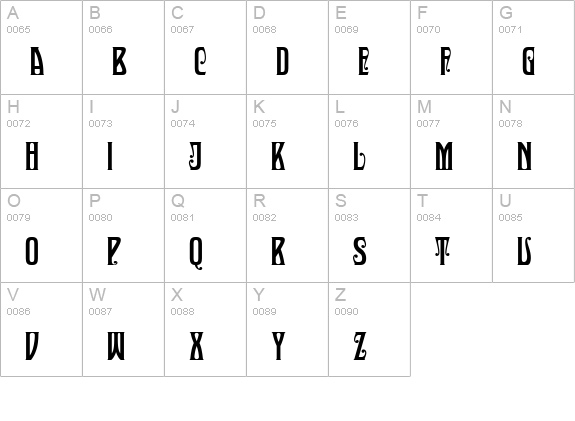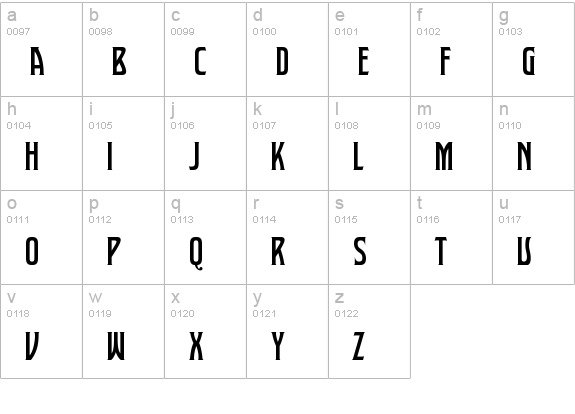
Sultan Cafe PERSONAL USE Font Details
Sultan Cafe PERSONAL USE font is an exquisite and versatile typeface that captures the essence of elegance and sophistication. With its flowing and intricate letterforms, this font adds a touch of luxury to any design project. Designed with meticulous attention to detail, Sultan Cafe PERSONAL USE font is perfect for creating stunning logos, branding materials, invitations, and more. Its unique and ornate design makes it ideal for projects that require a touch of opulence and grandeur. But what sets Sultan Cafe PERSONAL USE font apart is that it is available for free! Yes, you read that right. This stunning typeface can be freely downloaded from FontsMarket.com, allowing you to bring a touch of luxury to your designs without breaking the bank. Whether you're a professional designer or a hobbyist, Sultan Cafe PERSONAL USE font will surely elevate your work to new heights. Its timeless and sophisticated aesthetic ensures that your designs will stand out from the crowd and leave a lasting impression. So why wait? Download Sultan Cafe PERSONAL USE font today and unleash your creativity. With its free availability at FontsMarket.com, you have nothing to lose and everything to gain. Transform your designs into works of art with this remarkable typeface and captivate your audience with its unmatched beauty.